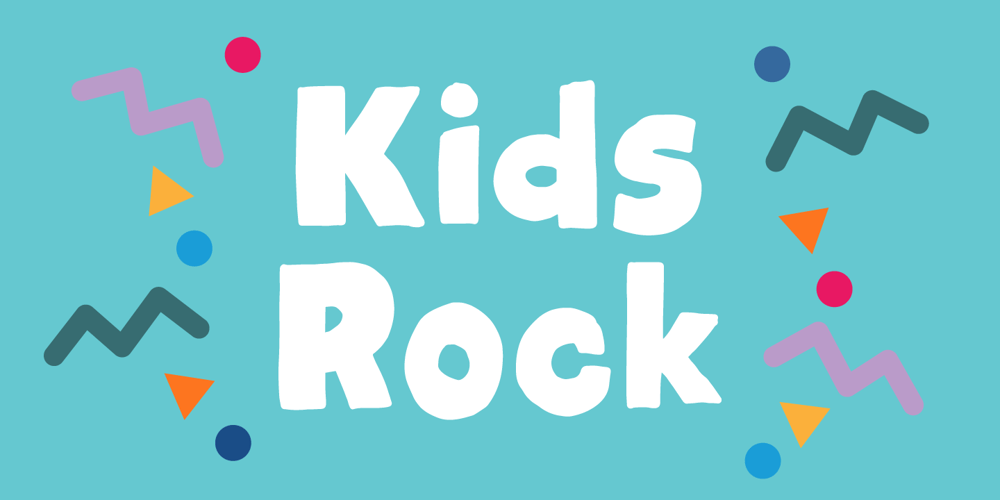
Kids Rock Font Family was designed by Jakob Fischer and published by PizzaDude.dk. Kids Rock contains 2 styles and family package options. Kids Rock is comic with a twist of graffiti. Comes with ligatures for double letter substitution as well as multilingual support